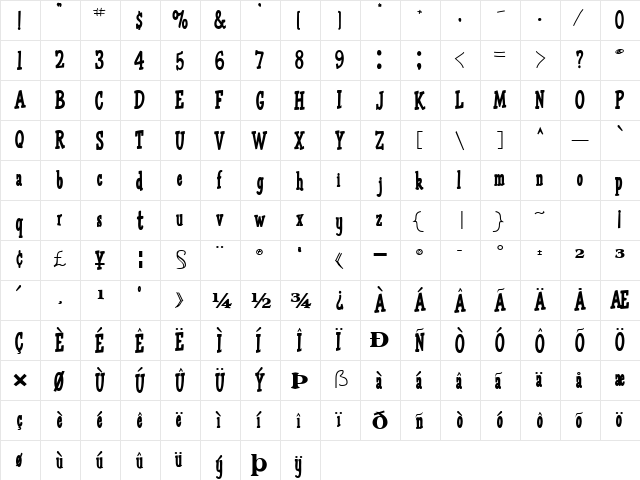
OmegaType93 Bold
Design Context for OmegaType93 Typeface
OmegaType93 offers clean, dependable letterforms without strong stylistic allegiance, making it a practical choice for designers who need flexibility. The heavy weight commands attention and anchors typographic hierarchies.